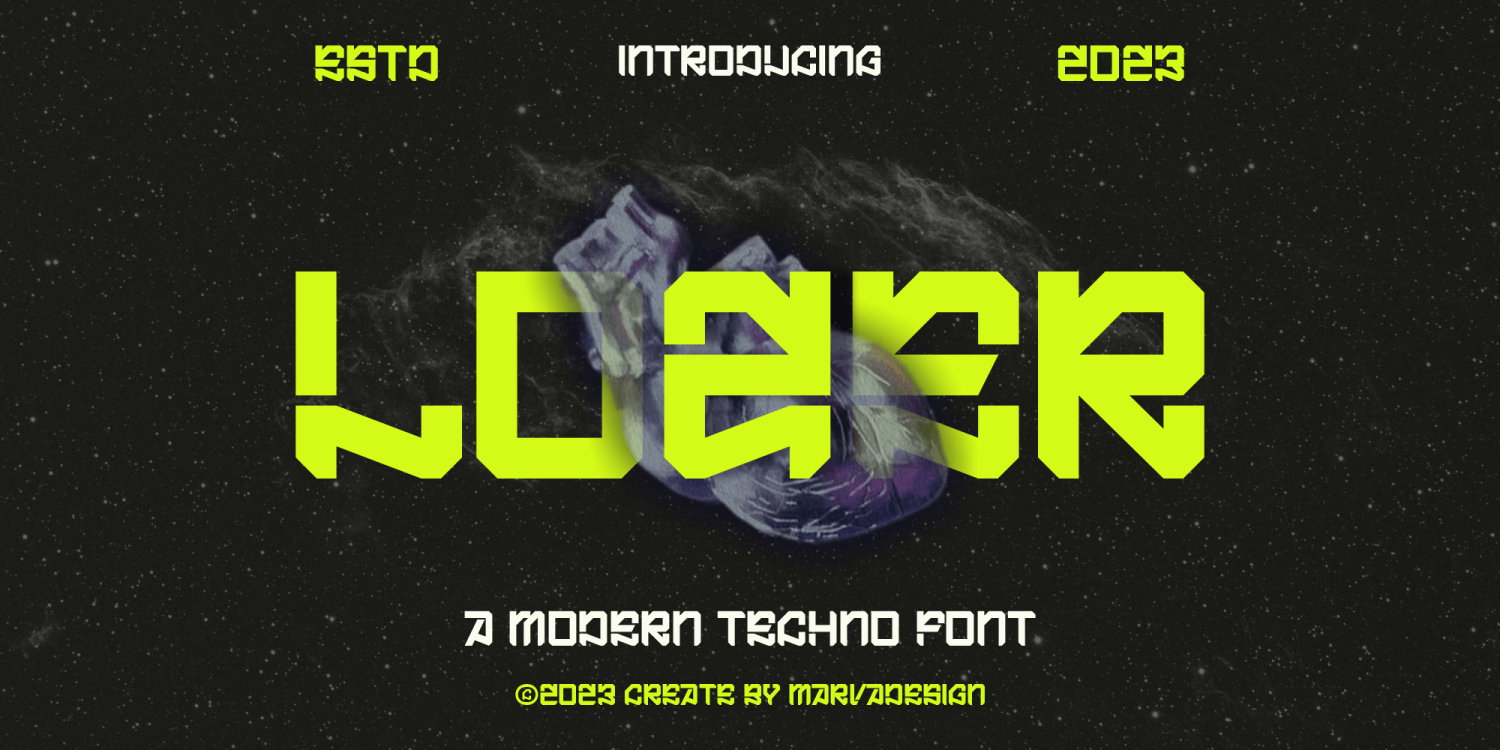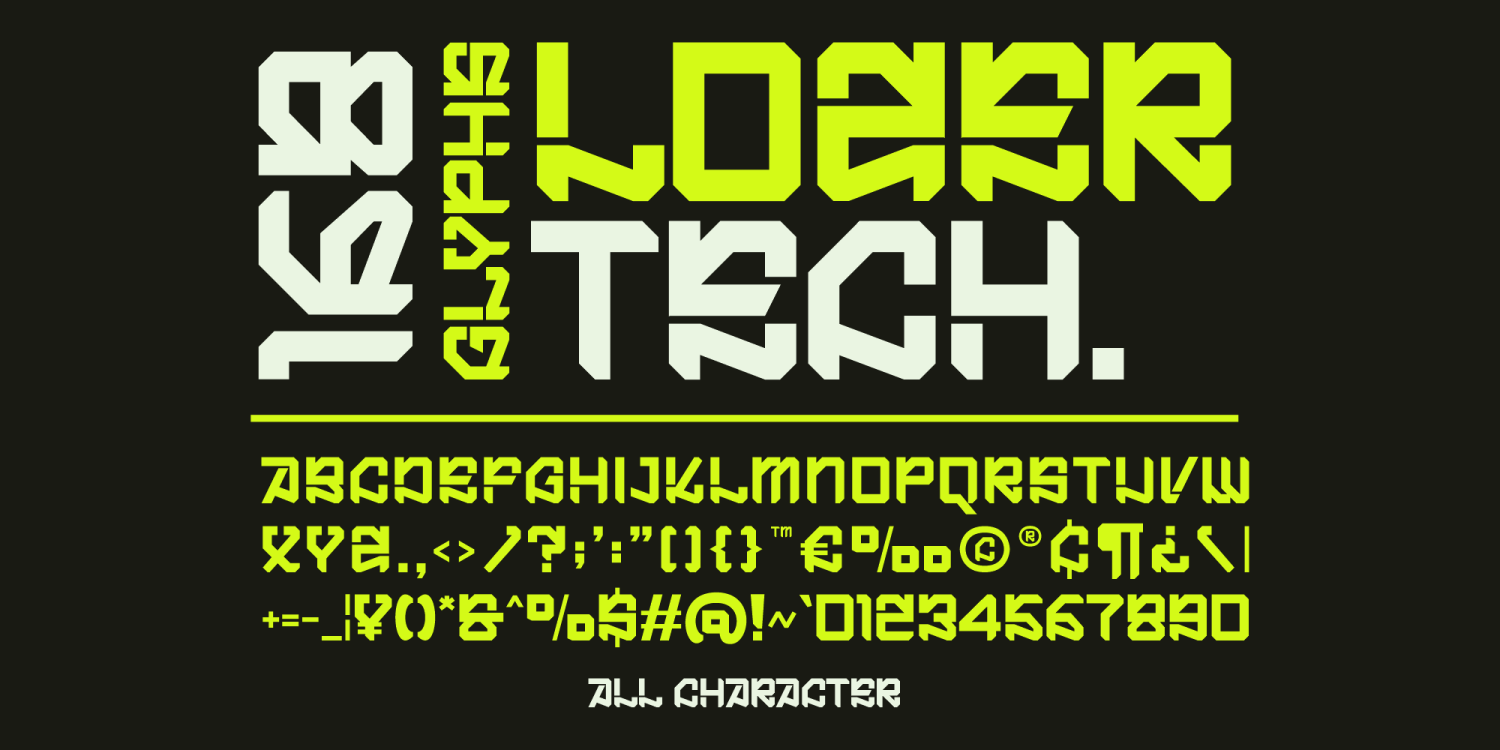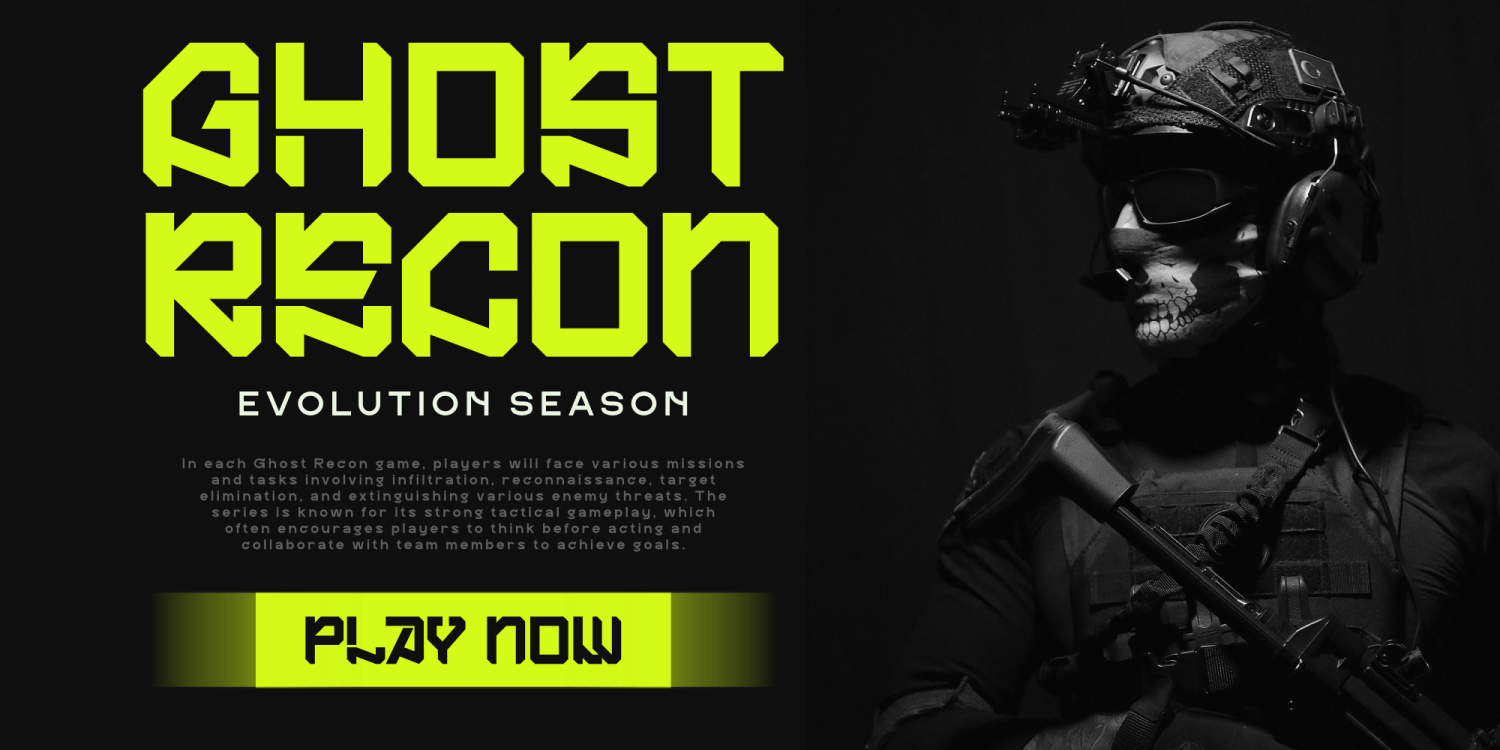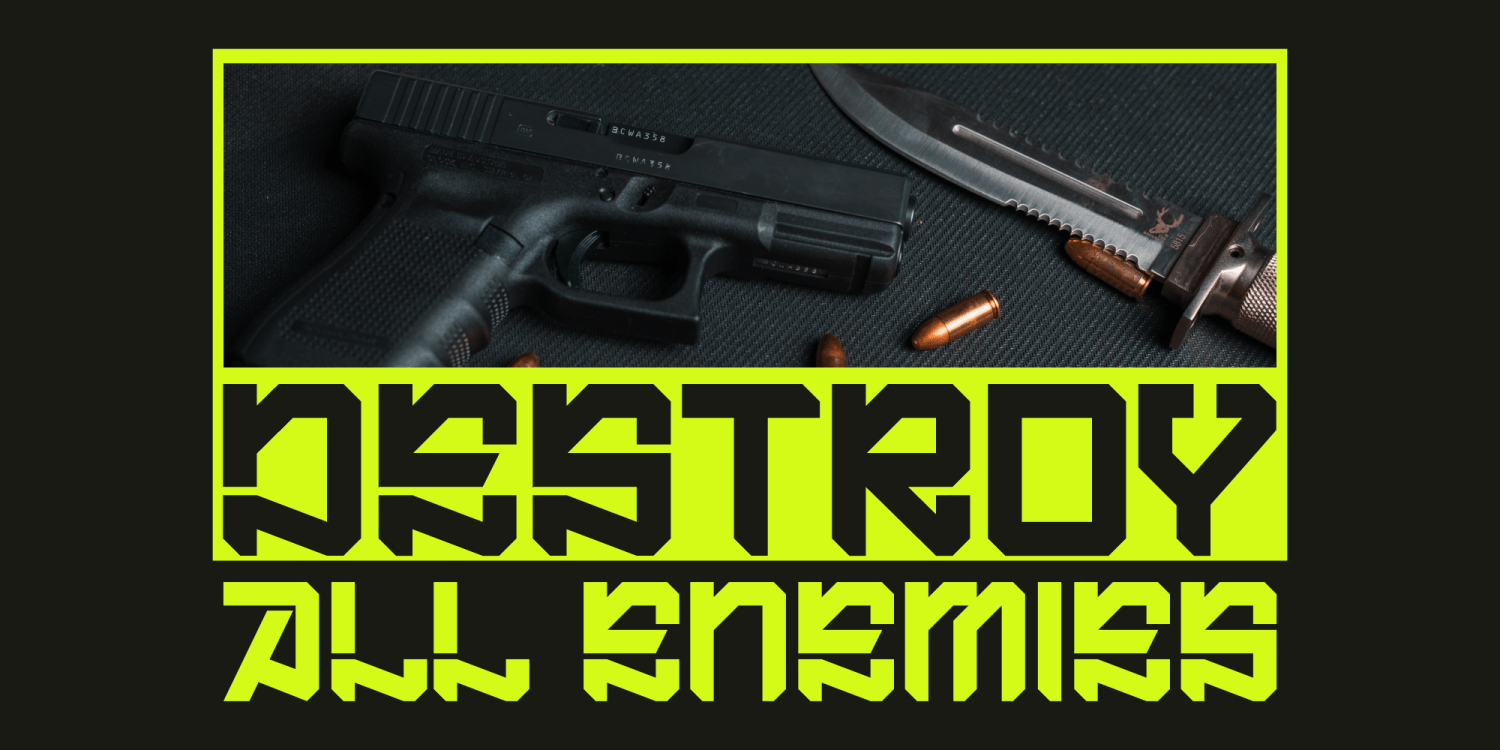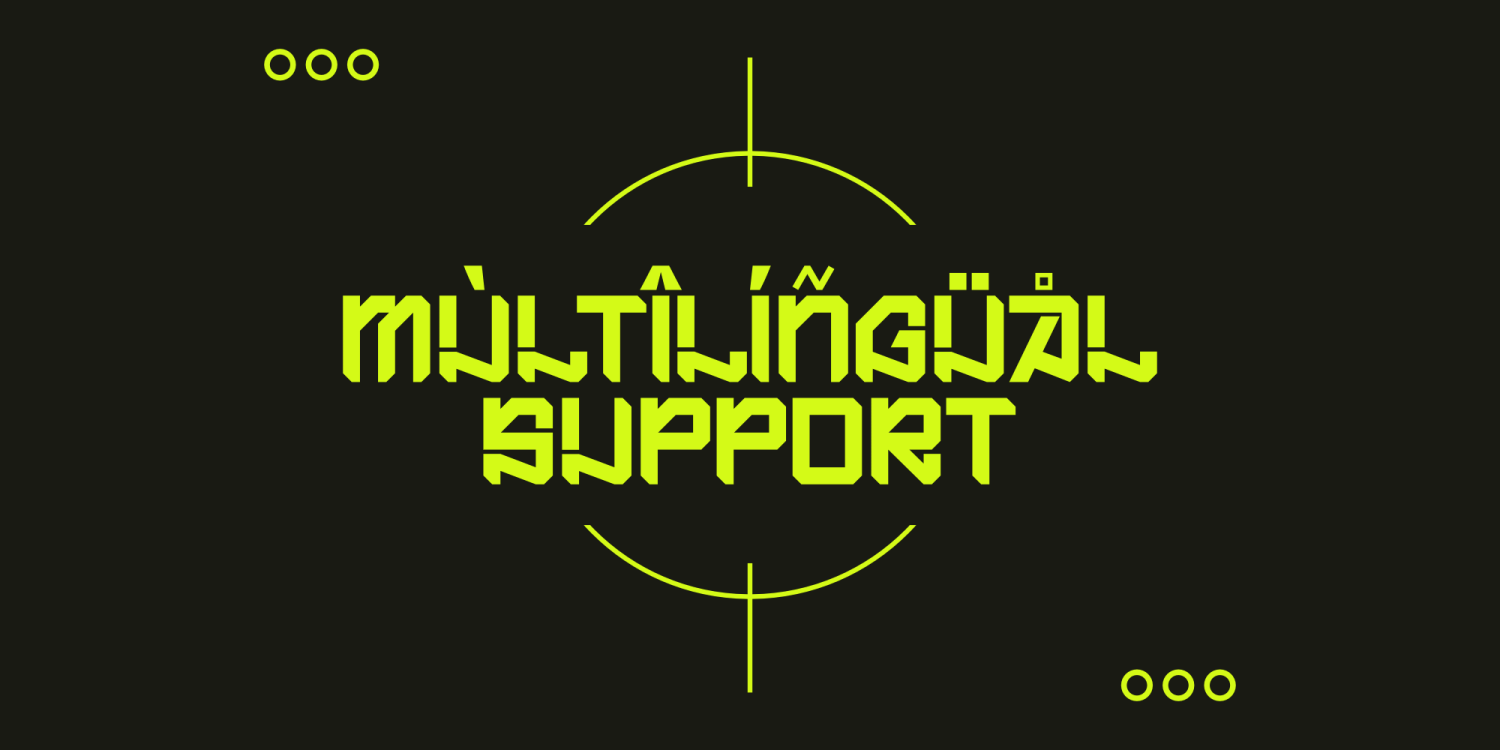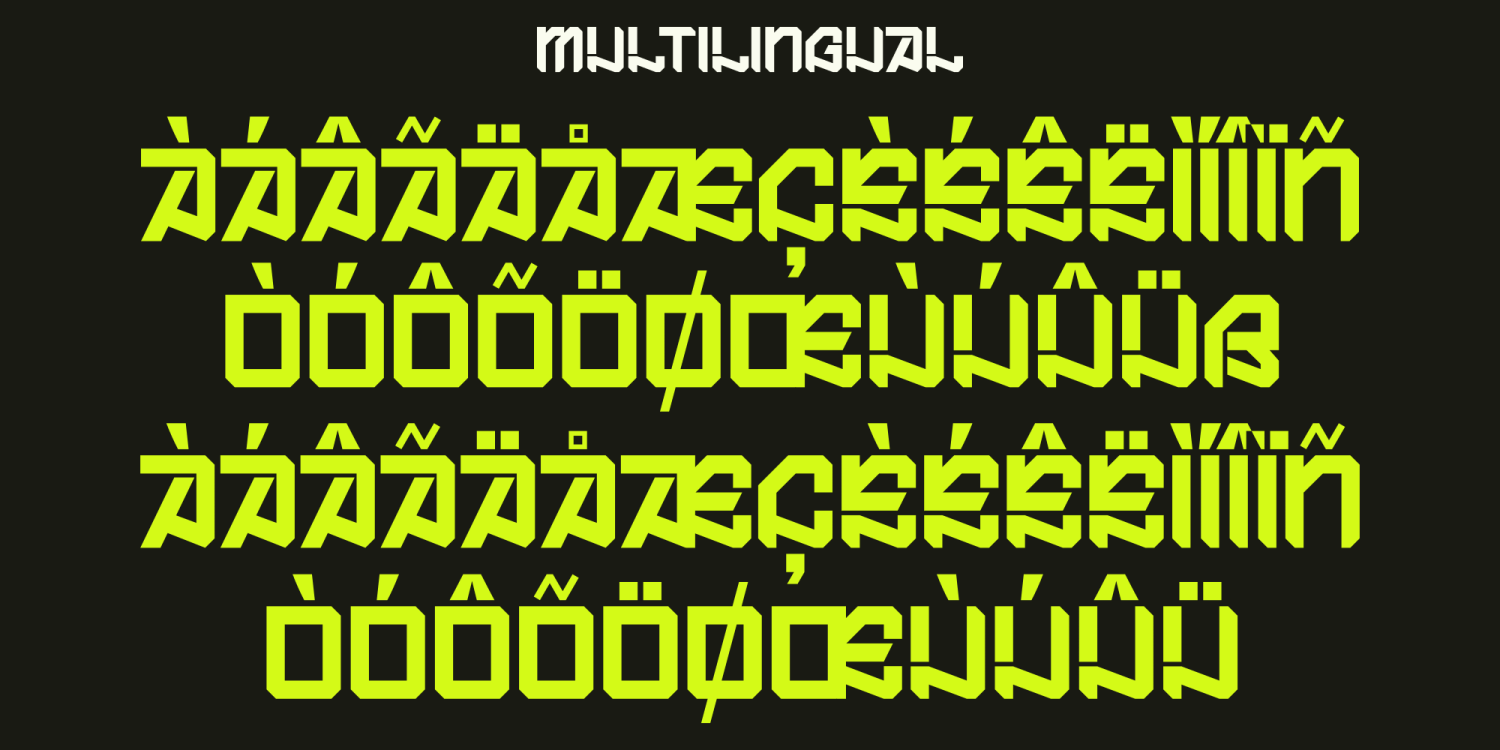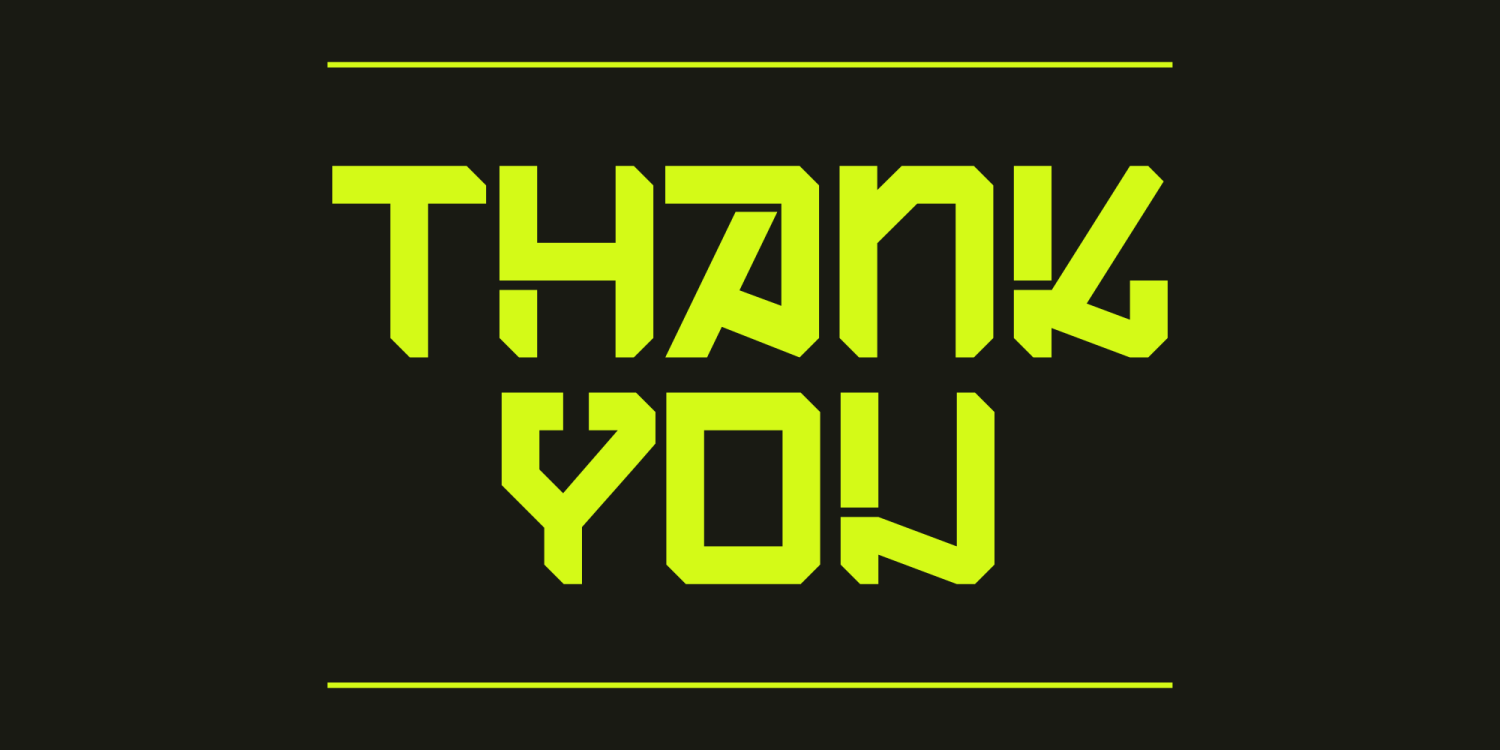
Lozer
Font Family by Marvadesign
Lozer is a cutting-edge, modern techno font that embodies a bold and futuristic aesthetic. With its sharp angles, geometric structure, and strong visual presence, Lozer is designed to make a statement in high-tech, gaming, and sci-fi-themed designs. The font features a unique blend of sharp edges and dynamic letterforms, creating an eye-catching and distinctive look. Its versatility makes it ideal for use in posters, branding, digital media, and futuristic interfaces. Lozer is a perfect choice for projects that demand a sleek, high-impact, and innovative typographic style.